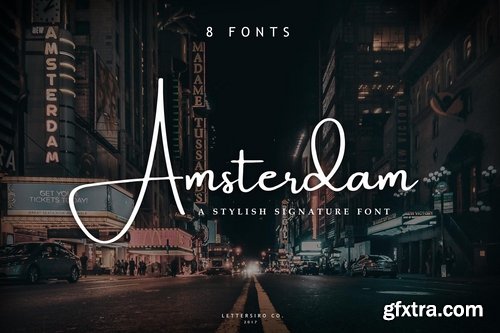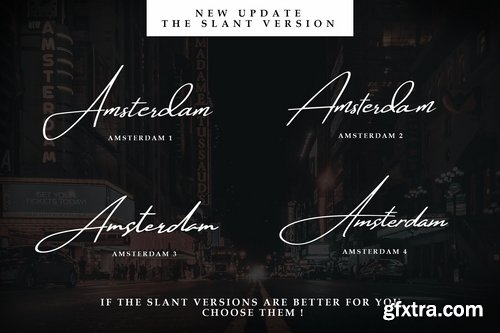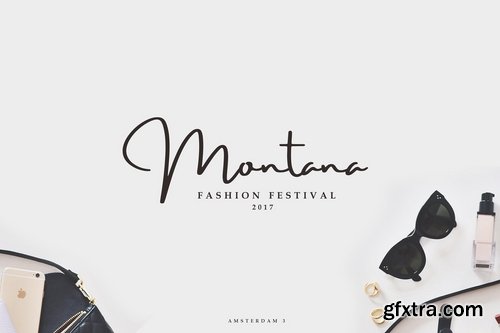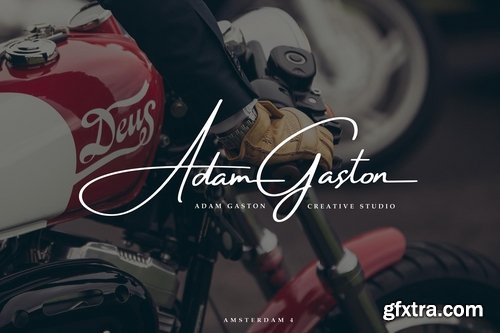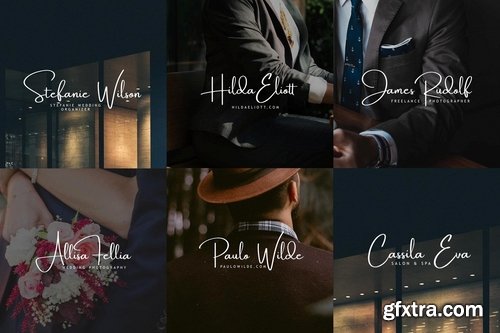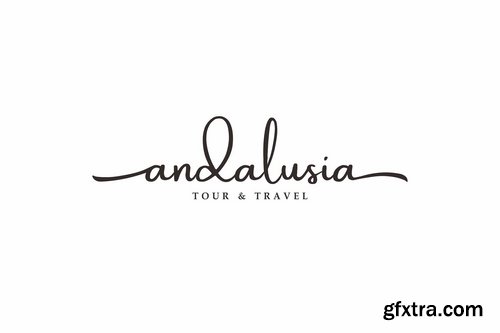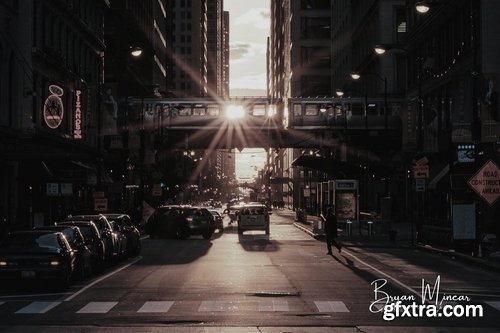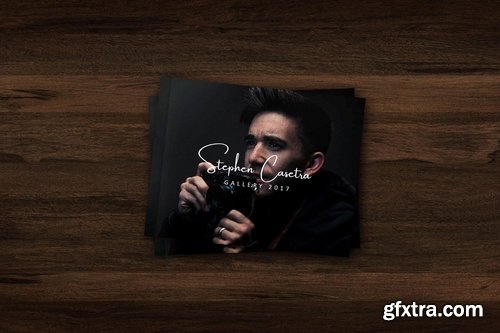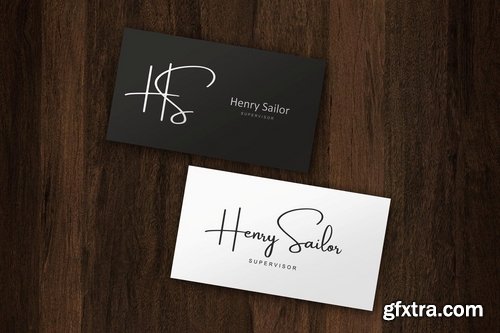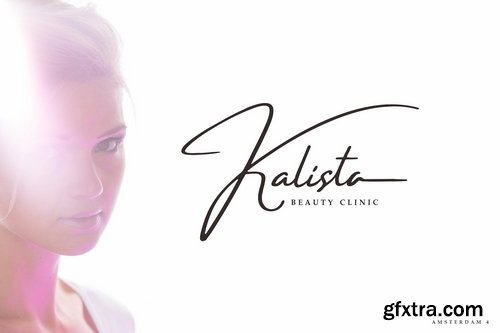
According to our followers request to make a signature font again , we made this font. The Amsterdam font is a simple and classy font, comes with 8 Elegant Variations, opentype features such as stylistic alternates,initial and final form, and ligatures. We keep this font looks elegant, classy, readable, stylish, catchy and easy to use.
The Amsterdam Font is the great choice for watermark on photography, signature or signature logo design, quotes, album cover, business card, and many other design project. From business cards to photo watermarks, The Amsterdam is here to elevate your work to the highest level
Amsterdam Font is The winner of the Best Judge Choice in 2017 envato element contest The Amsterdam variations will make you smile and happy. Just pick the variation you like best. NO DOUBT ! . If those variations did not touch your heart, we will add more variations in the future update :) Highlights: 8 beautifully elegant signature fonts in $20 deal. Add more style to each font with OpenType Features - stylistic alternates, lowercase initial form and final form, ligatures. The perfect font choice for powerful projects - watermarks, signatures, photography, logos, business cards, quotes, album covers. Standard license - create as use as many of these fonts as you''d like on your own personal projects as well as any commercial ones for clients. The Amsterdam is a PUA encoded font - it may be used in almost any program by using your Operating System’s utilities (CharacterMap for Windows and Font Book for Mac.), as well as Illustrator, Photoshop CC 2017 and several other applications. Multilingual support - spread your message globally AÀÁÂÃÄÅCÇDÐEÈÉÊËIÌÍÎÏNÑOØÒÓÔÕÖUÙÜÚÛWYÝŸỲŸÆŒßÞþ What is include : Amsterdam One (Otf/Ttf/Woff) Amsterdam One Slant (Otf/Ttf/Woff) Amsterdam Two (Otf/Ttf/Woff) Amsterdam Two Slant (Otf/Ttf/Woff) Amsterdam Three (Otf/Ttf/Woff) Amsterdam Three Slant (Otf/Ttf/Woff) Amsterdam Four (Otf/Ttf/Woff) Amsterdam Four Slant (Otf/Ttf/Woff) PUA Encoded Characters - Fully accessible without additional design software. How to access alternate glyphs? you can see it on this link ( http://goo.gl/1vy2fv) RAR PASS: AMSTERDA4354E_GFXTRA